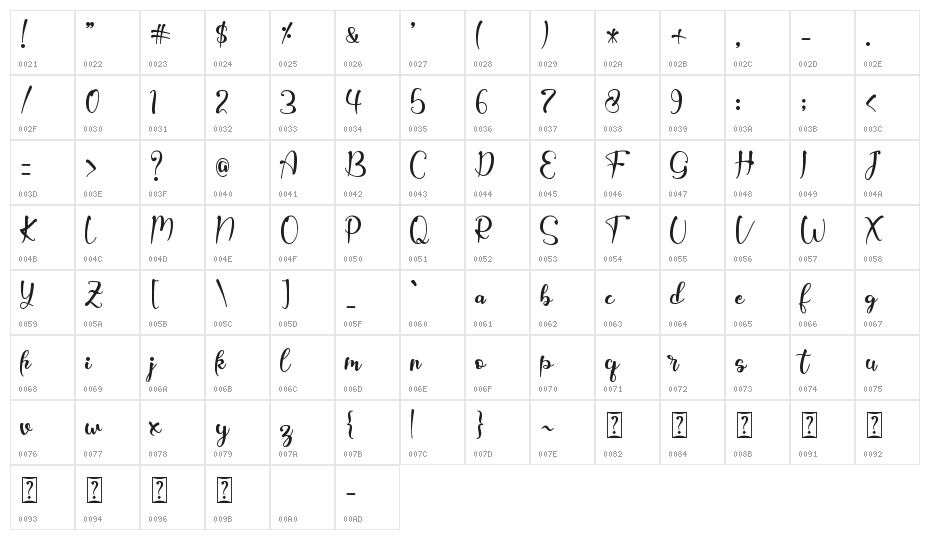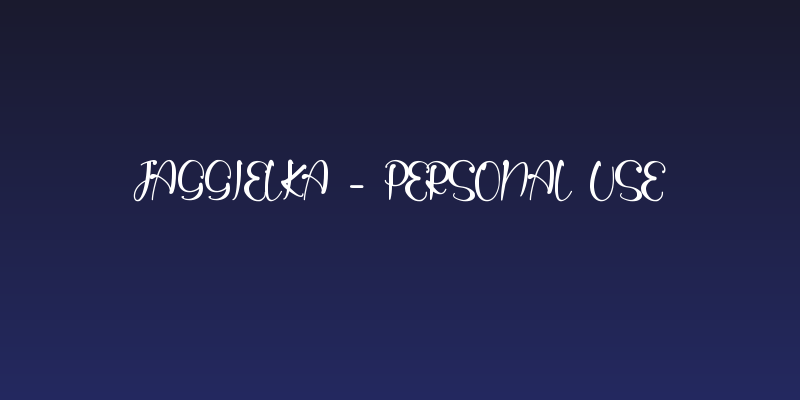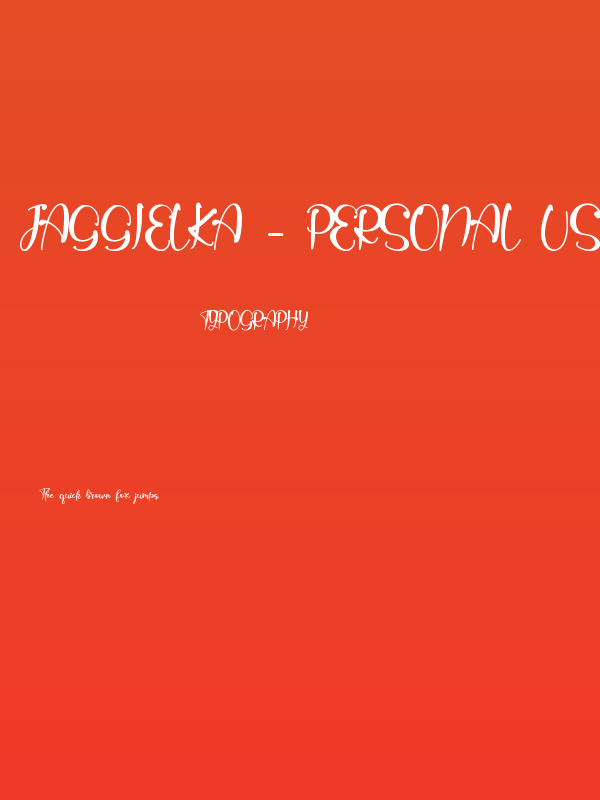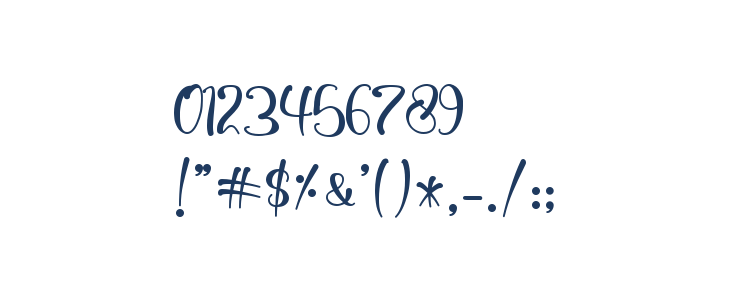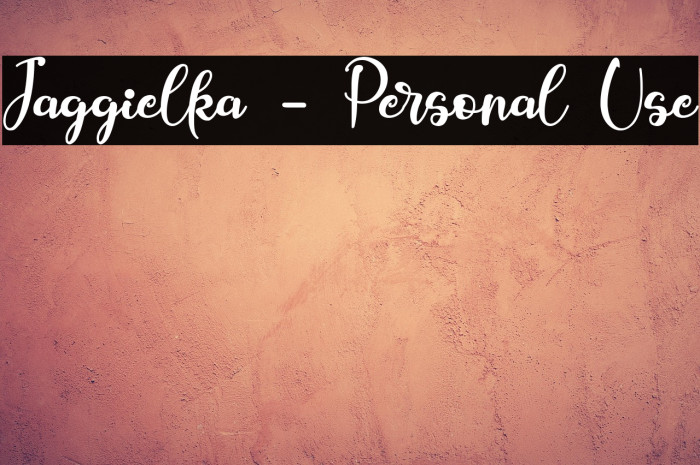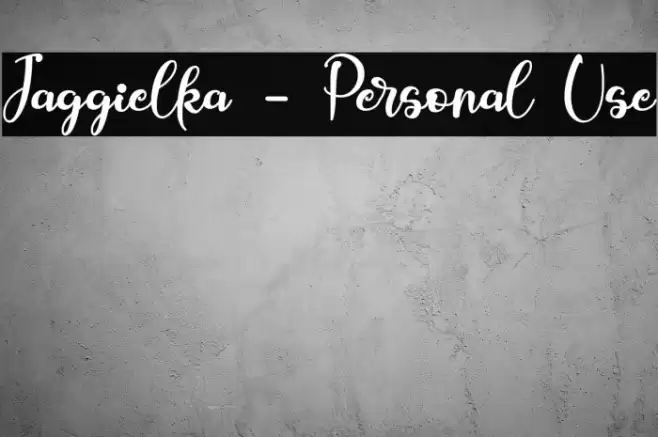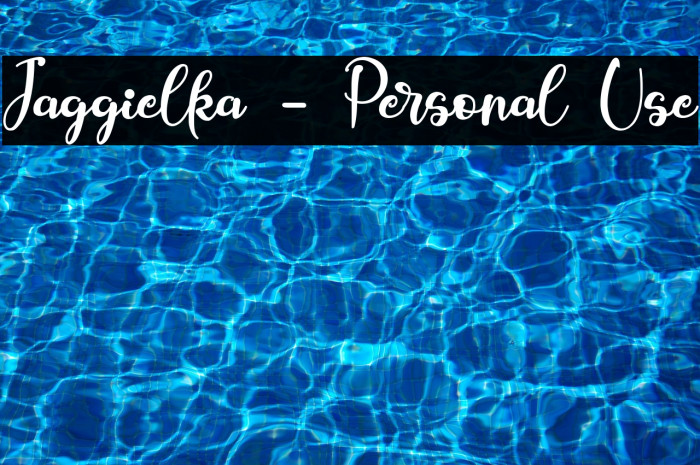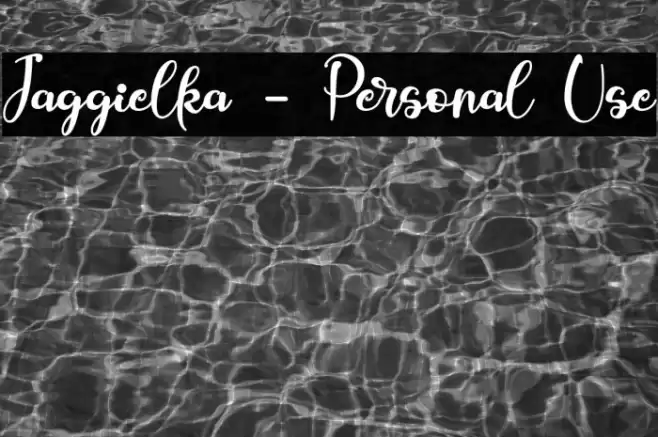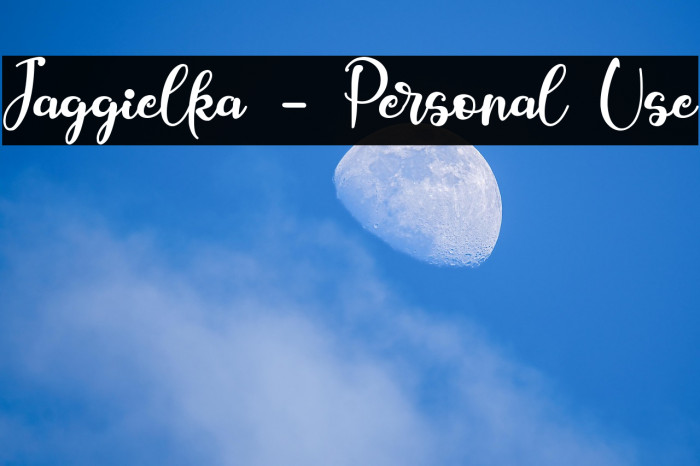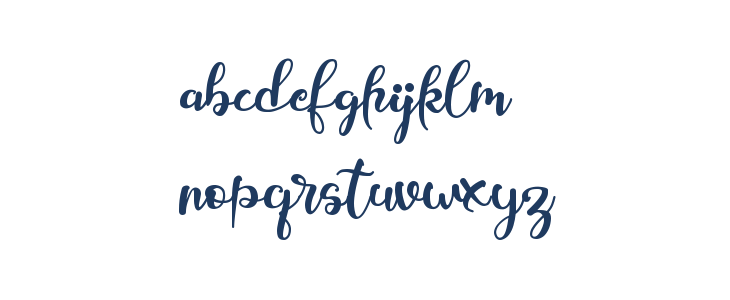
Jaggielka - Personal Use Font
This font features a flowing, cursive style with elegant loops and swashes, giving it a handwritten appearance. The uppercase letters are bold and ornate, with distinctive flourishes that add a touch of sophistication. The lowercase letters maintain a consistent style, with smooth, connected strokes that enhance readability while preserving the decorative nature. The numerals are designed to match the overall aesthetic, featuring similar curves and embellishments. Special characters are included, maintaining the cohesive style throughout. This font is ideal for projects that require a personal, artistic touch.